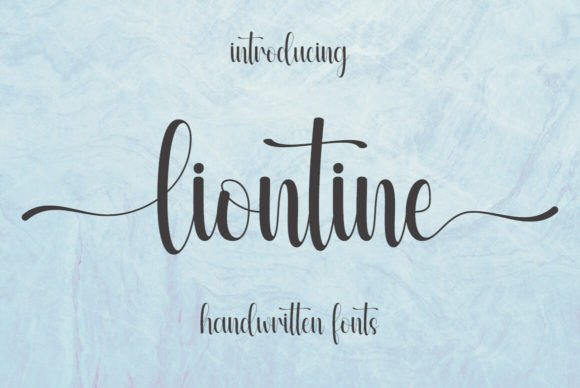
Behold, the Liontine Font: A Masterpiece of Elegance and Flowing Strokes
Prepare to be captivated by the Liontine Font, a script font that exudes an aura of timeless beauty and sophistication. Crafted with the utmost care and attention to detail by Hardiboy Design, this font is destined to transform your creative projects into breathtaking masterpieces.
Embark on a journey of artistic expression with Liontine, a font that dances and flows like a gentle breeze. Its delicate curves and elegant lines evoke a sense of grace and refinement, making it the perfect choice for adding a touch of charm and uniqueness to your designs.
Unleash the Power of Liontine's Versatility
Liontine is not just another font; it's a versatile work of art that lends itself effortlessly to a myriad of creative endeavors. Whether you're designing logos, crafting invitations, creating social media graphics, or simply adding a personal touch to your digital creations, Liontine has got you covered.
With its ability to transform ordinary words into captivating works of art, Liontine is the secret weapon you need to make your designs stand out from the crowd. Let your imagination run wild as you explore the endless possibilities that this font has to offer.
Discover the Essence of Timeless Style
Liontine is a font that transcends time, embodying an aesthetic that remains eternally relevant and captivating. Its classic design ensures that your creations will stand the test of time, impressing audiences for years to come.
Whether you're designing for a vintage-inspired project or seeking a font that radiates timeless elegance, Liontine is your perfect companion. Its ability to blend seamlessly with diverse design styles makes it an indispensable tool for any designer's arsenal.
Ignite Your Creativity with Liontine
Liontine is more than just a font; it's an invitation to unleash your creativity and embrace the boundless possibilities of artistic expression. With its user-friendly PUA encoding, accessing all of the glyphs and swashes is a breeze, empowering you to add intricate details and flourishes to your designs.
Experience the joy of crafting designs that are not just visually appealing but also deeply meaningful and emotionally resonant. Let Liontine be your guide as you embark on a journey of creative exploration, pushing the boundaries of your imagination and creating masterpieces that will leave a lasting impression.